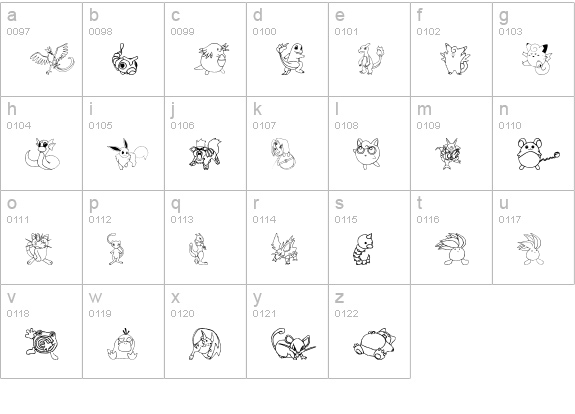
Tyler's Pokemon Font Details
Introducing Tyler's Pokemon font, a delightfully playful typeface that captures the essence of the beloved Pokemon franchise. This font is the perfect companion for all Pokemon enthusiasts, bringing the magic and excitement of the virtual world into your creative projects, designs, and personal endeavors. With its charming and whimsical letterforms, Tyler's Pokemon font seamlessly combines the iconic elements of the Pokemon universe with a clean and modern aesthetic. Each character is meticulously crafted, ensuring a visually appealing and cohesive look that is sure to captivate both young and old fans alike. What sets Tyler's Pokemon font apart is its versatility. Whether you're designing a Pokemon-themed birthday invitation, creating captivating social media graphics, or adding a touch of nostalgia to your personal blog, this font will effortlessly elevate your creations and add a touch of magic to every project. And the best part? Tyler's Pokemon font is available for free download at FontsMarket.com. Now, you can bring the enchanting world of Pokemon to life without breaking the bank. Simply head over to FontsMarket.com and unlock the possibilities that this font has to offer. So, why wait? Embrace your inner Pokemon trainer and let Tyler's Pokemon font transport you to a world where adventure awaits at every turn. Download this incredible font for free today and embark on a creative journey like no other. Get ready to catch them all with Tyler's Pokemon font!